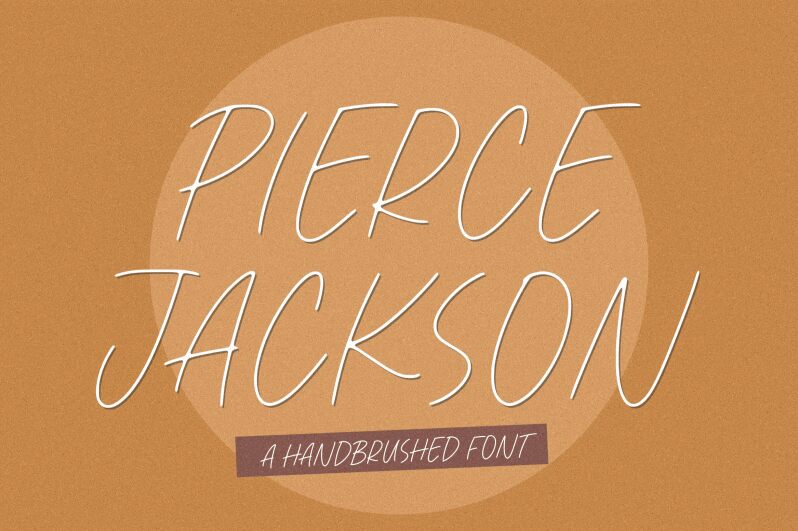
Pierce Jackson
Pierce Jackson font by Balpirick Studio displays an unconventional handwritten typeface that is slim and light. This font is free for personal use and combines fine taste with a sleek modernity that makes it perfect for projects that call for a touch of class. It has got smooth, clear-cut lines which are light enough to make sense in artistic works.
Pierce Jackson is the best choice when designing logos, working on branding ideas, and personal event cards. It’s got its own special atmosphere which fits both traditional and ultramodern designs, thus giving you much freedom in application.